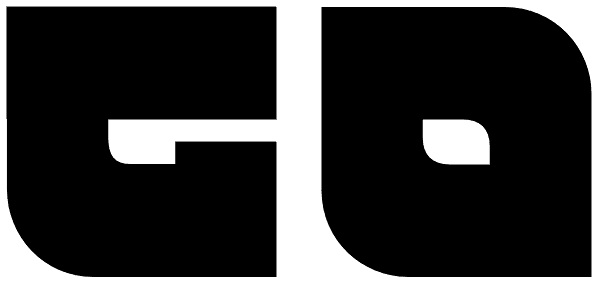
Go
Five years into the 21st century and the promise of nanotechnology, high-end popular culture design seems to thrive on combining opposites and drawing a fine line between traditionally contradictory ideas. This is seen in modern society's usual...